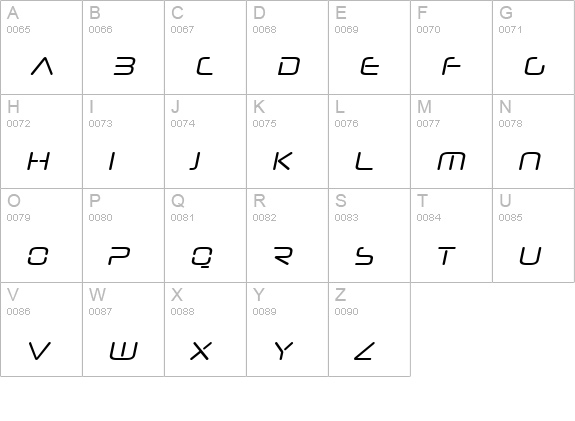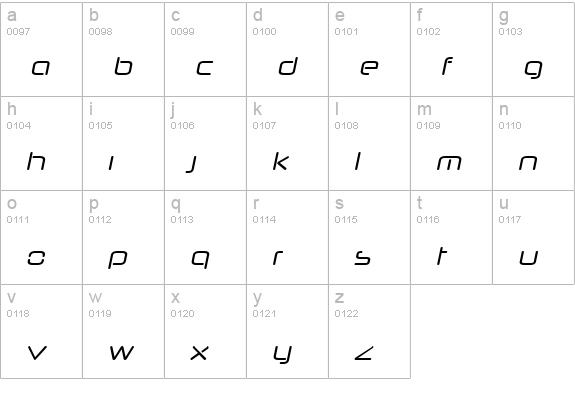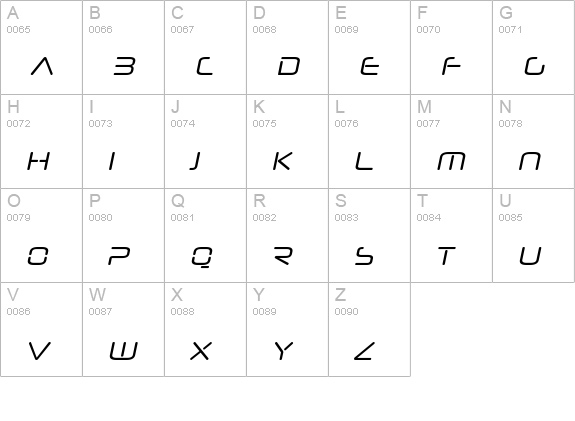
Neuropol Nova Italic Font Details
Neuropol Nova Italic is a distinctive, italic variant in the Neuropol typeface family \xE2\x80\x94 well suited to design and typography projects.
The Neuropol Nova Italic font is a sleek and modern typeface that combines futuristic elements with a touch of sophistication. Its slanted design gives it a dynamic and energetic feel, making it perfect for projects that require a contemporary and edgy look. The clean lines and geometric shapes of this font add a high-tech vibe that is sure to make your designs stand out. What's even better is that the Neuropol Nova Italic font is available for free download at FontsMarket.com. This means that you can easily access this stylish typeface without any cost, making it a great choice for designers looking to add a unique and eye-catching touch to their projects. With its bold and striking appearance, the Neuropol Nova Italic font is sure to make a statement in any design you use it for.